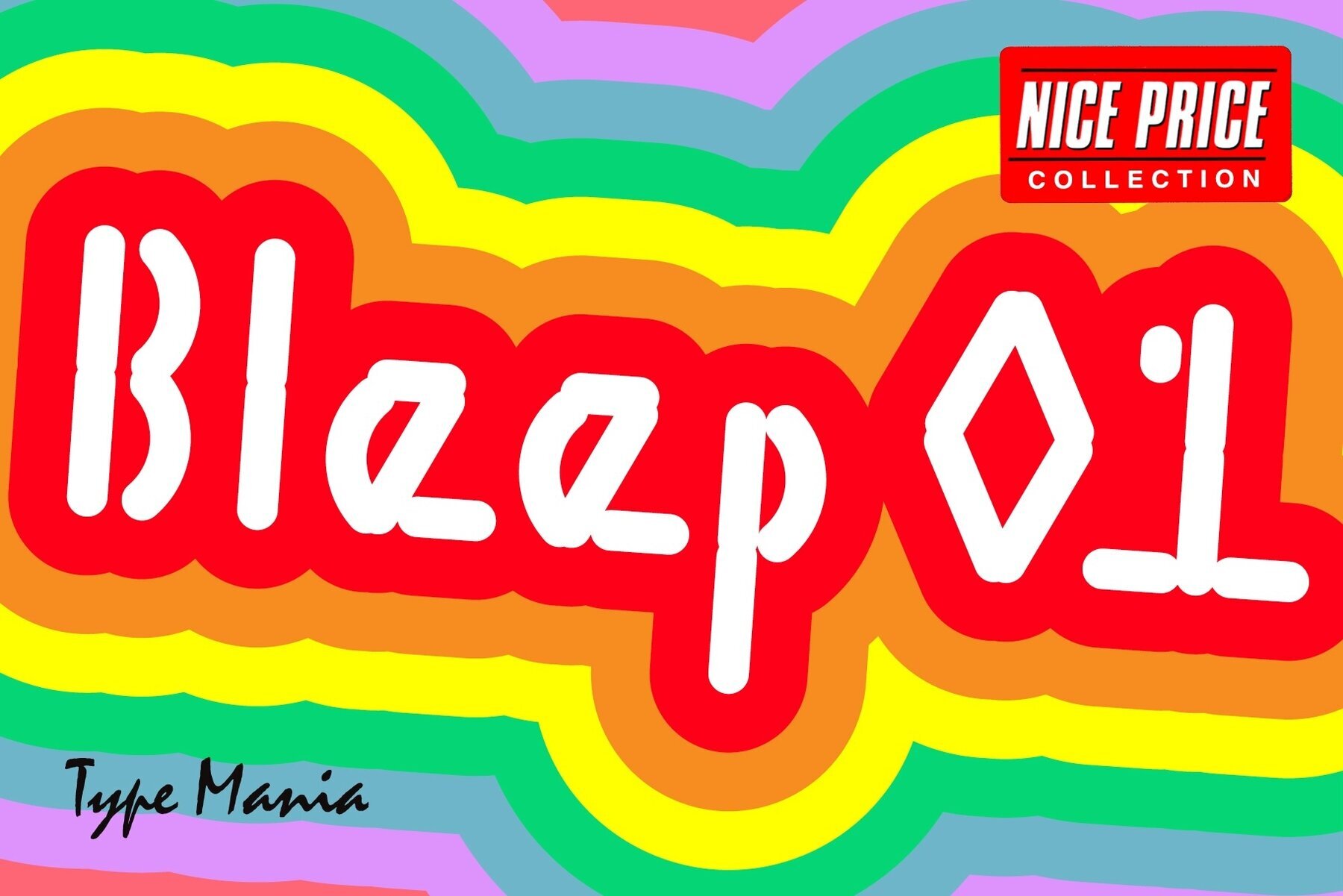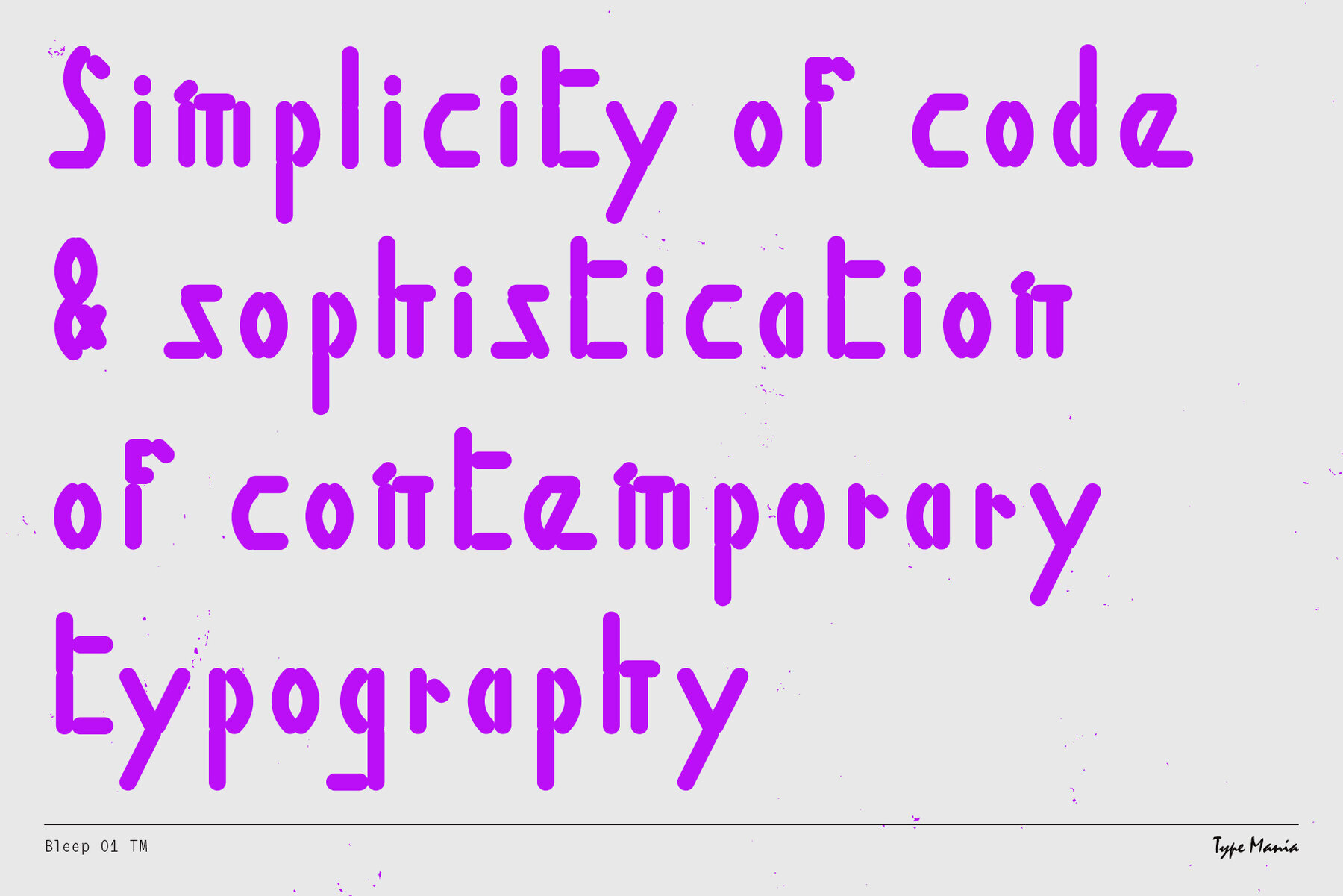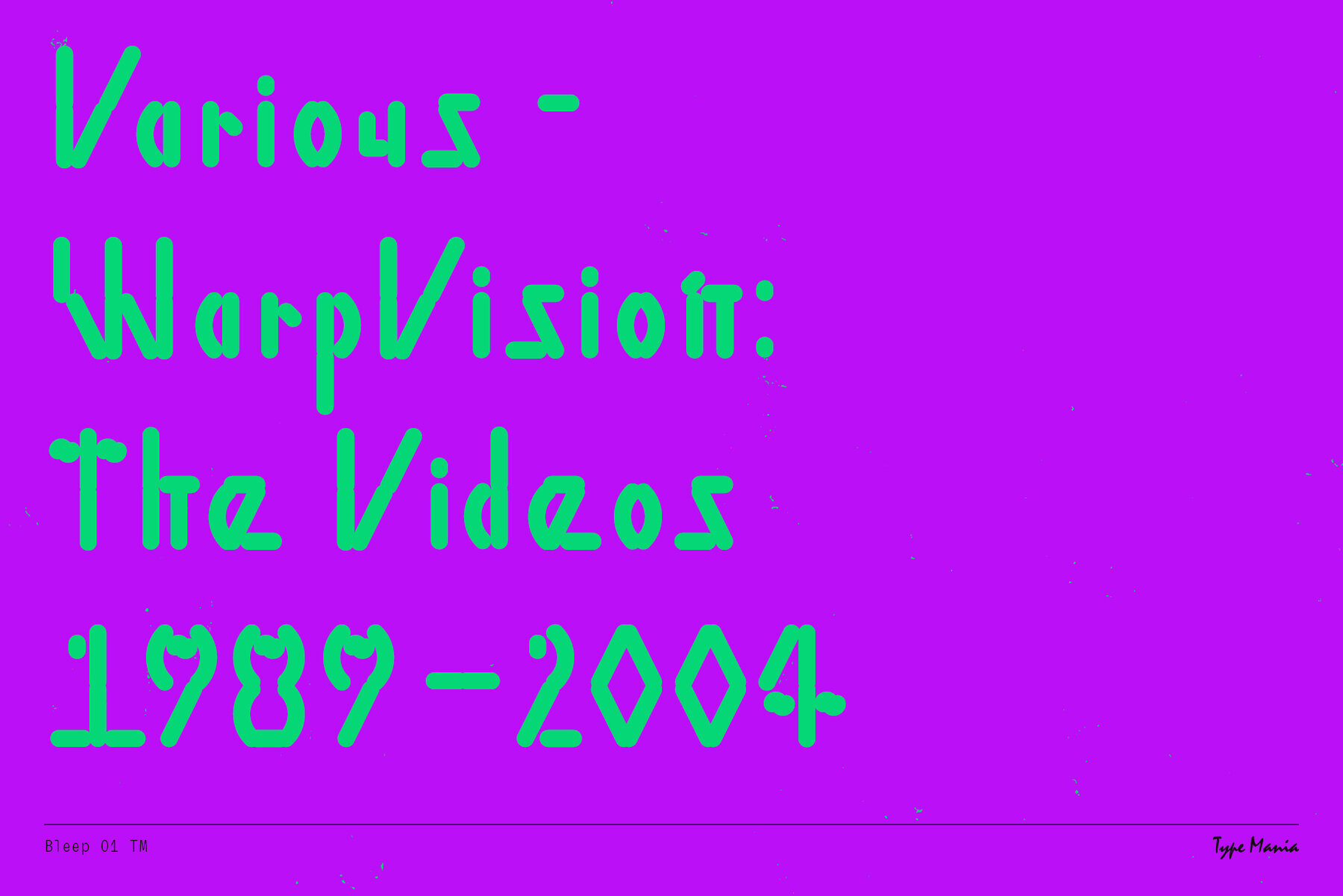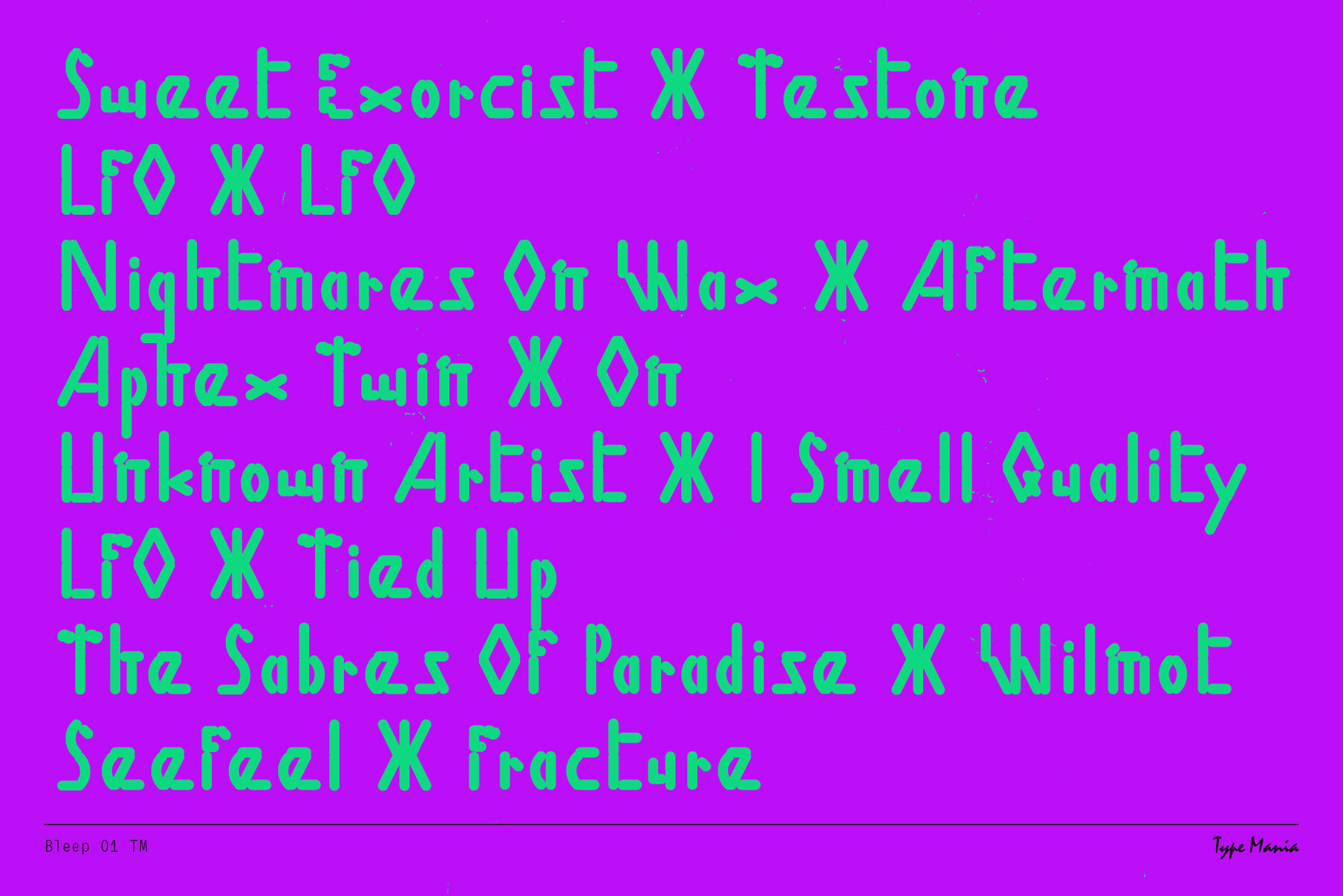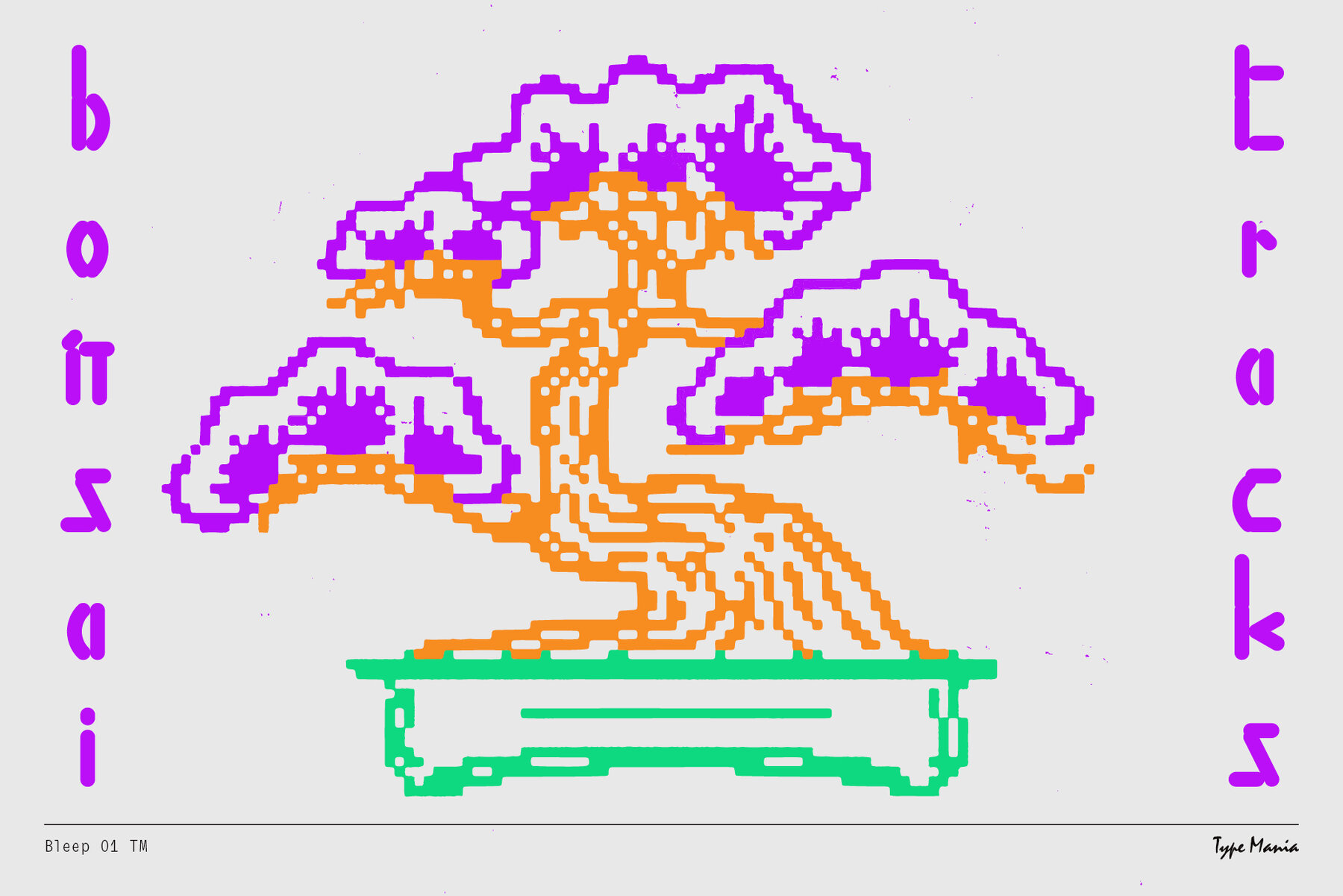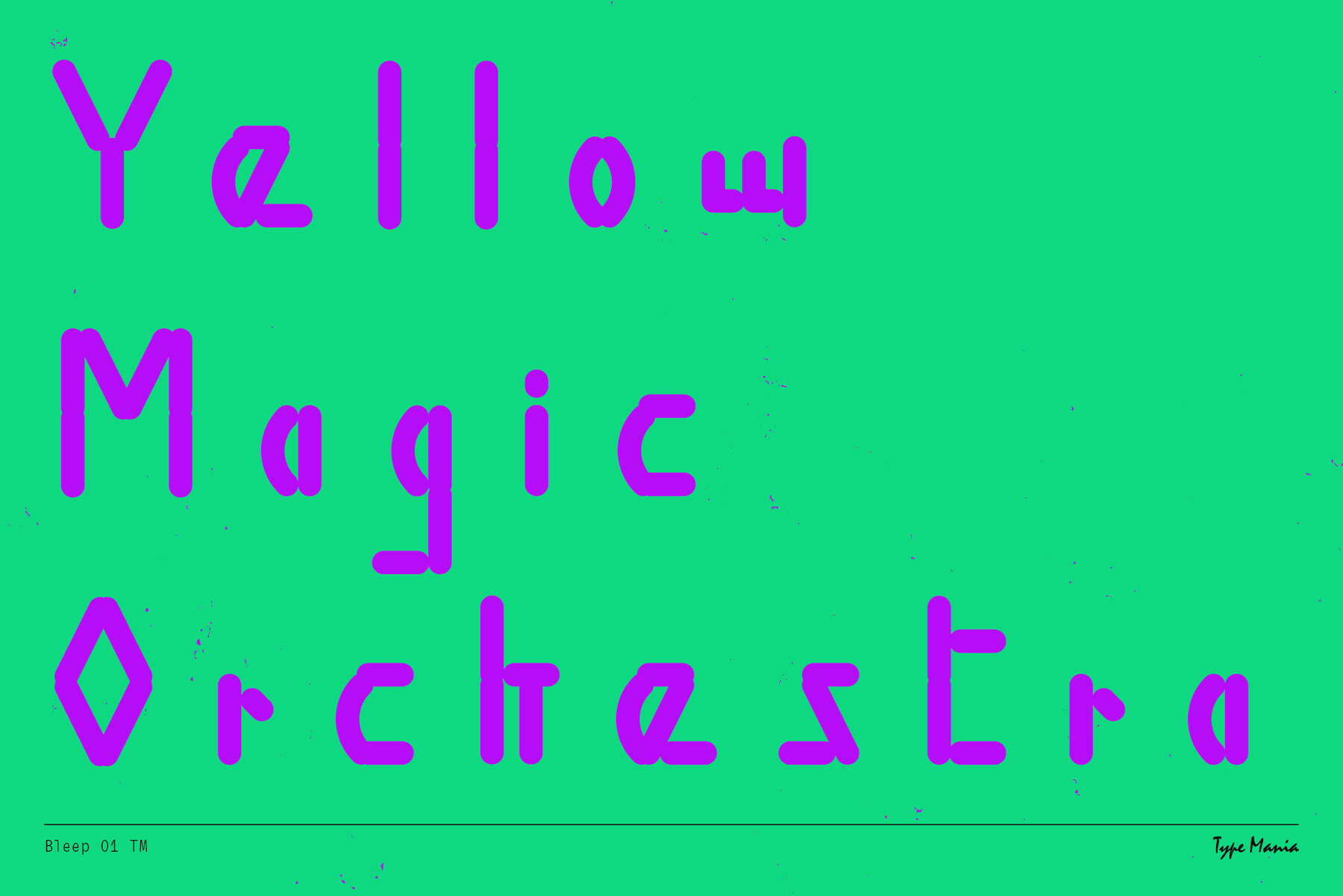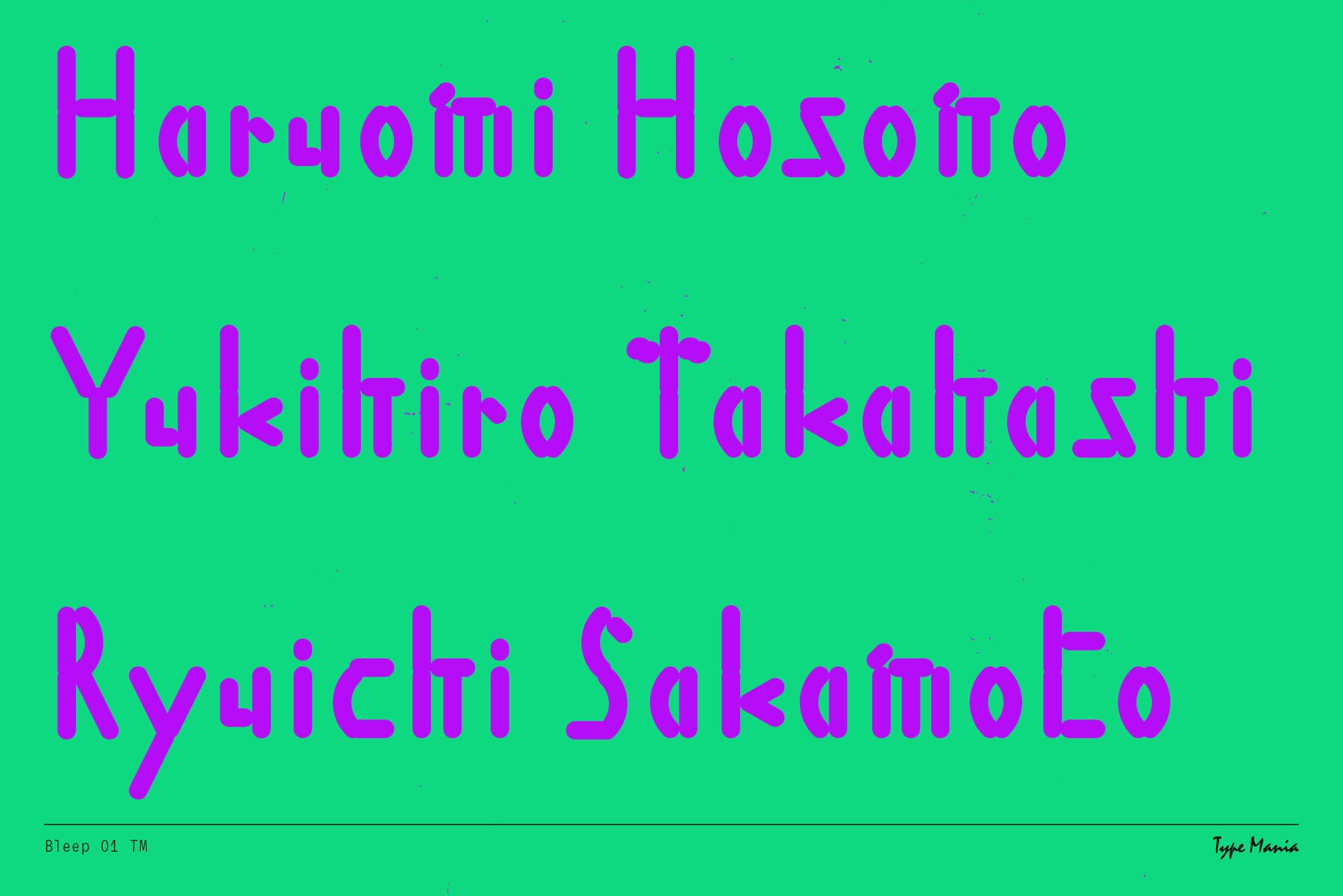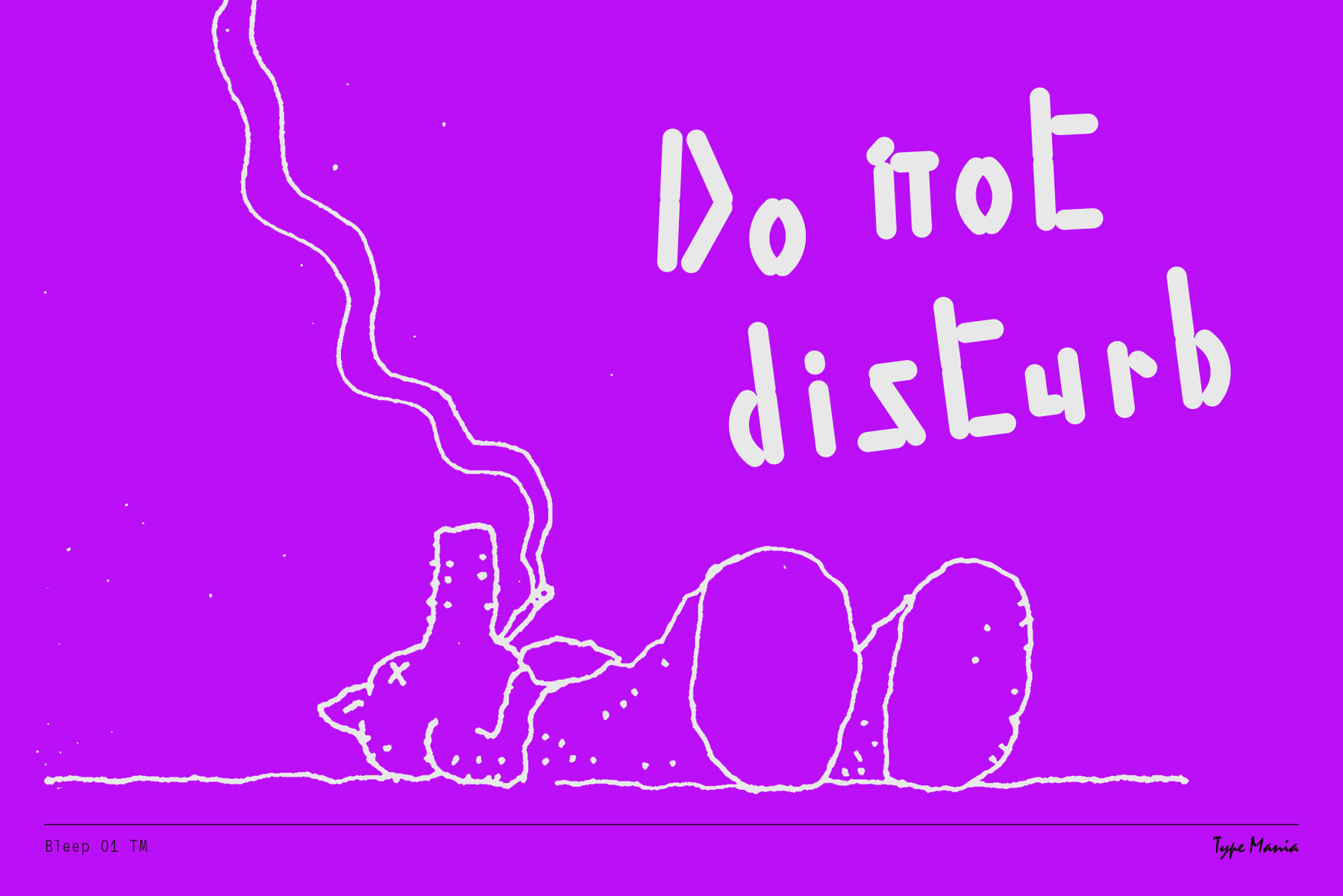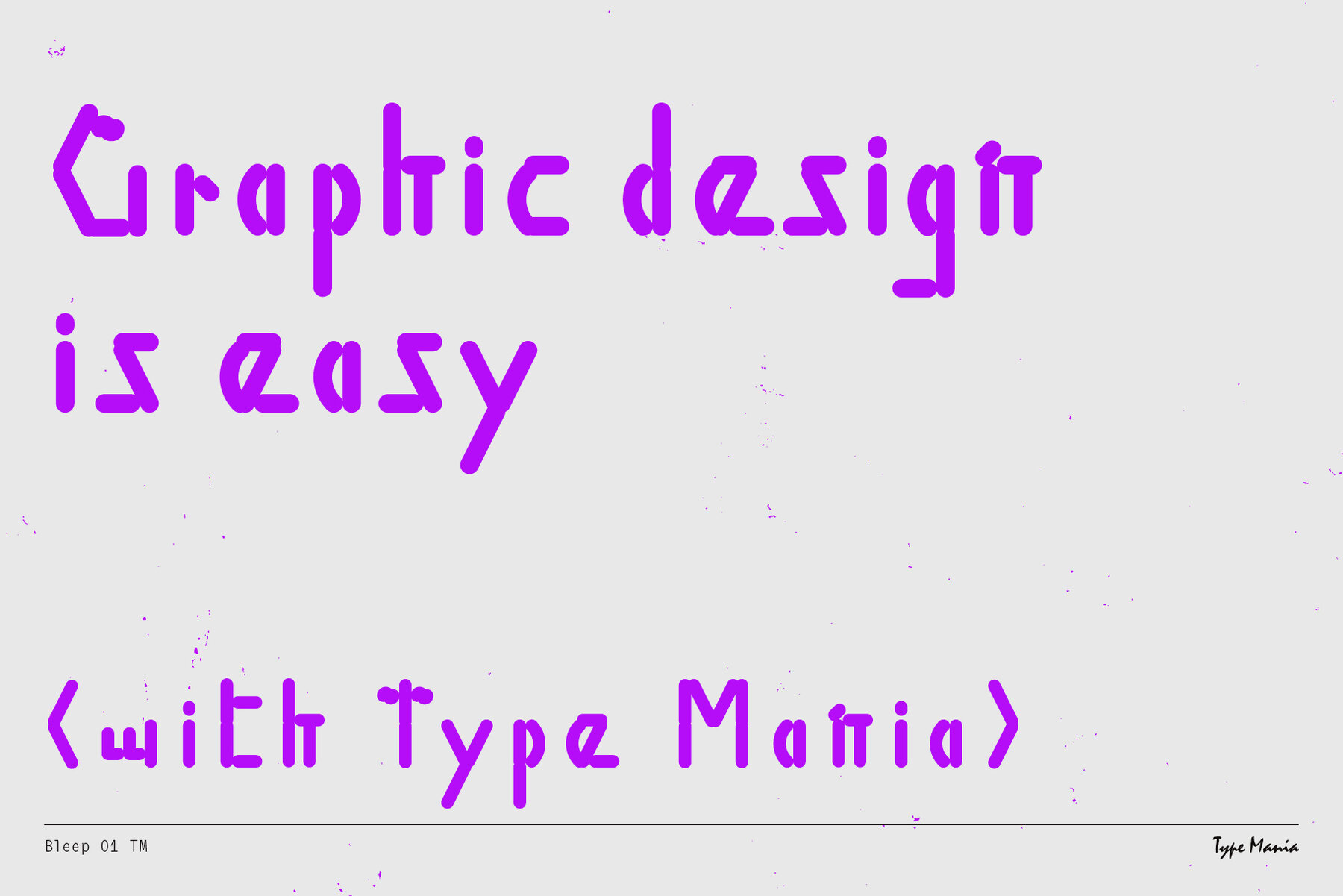
Bleep 01 TM Font
Bleep 01 TM Regular
Explore the digital avant-garde with Bleep 01 TM, an experimental typeface that transcends the conventional limits of creativity and innovation. Whether you are a designer, developer, or digital artist, Bleep 01 TM offers a unique mix of modern aesthetics and cozy retro feels, perfect for projects that call for a distinctive visual identity. Languages